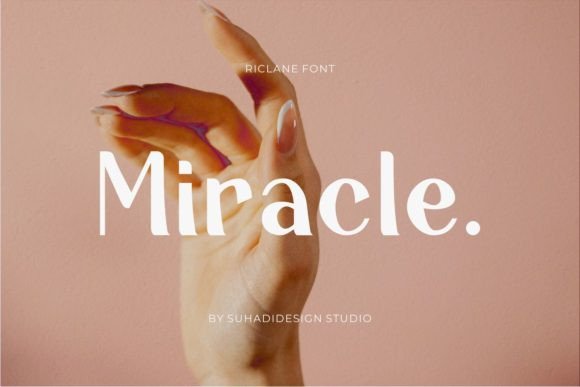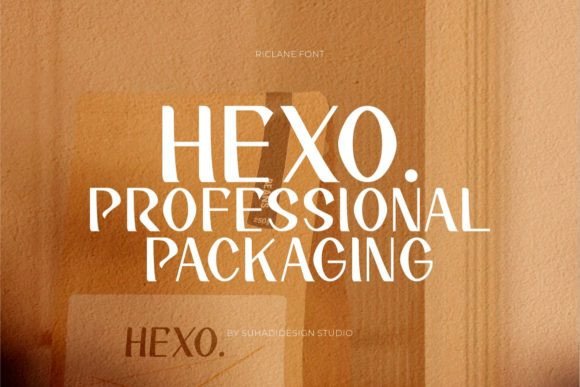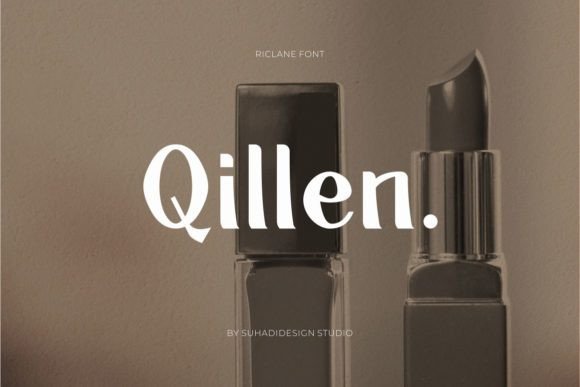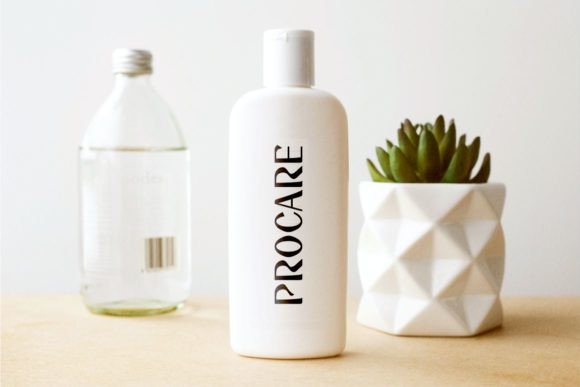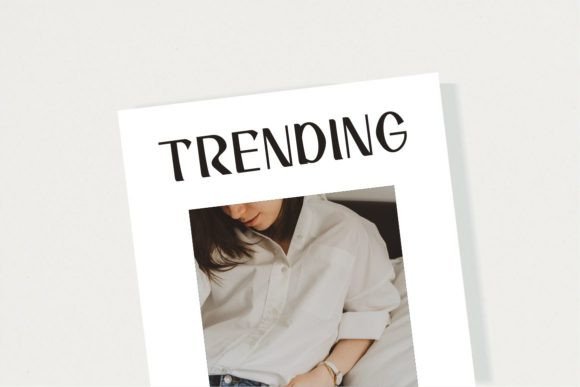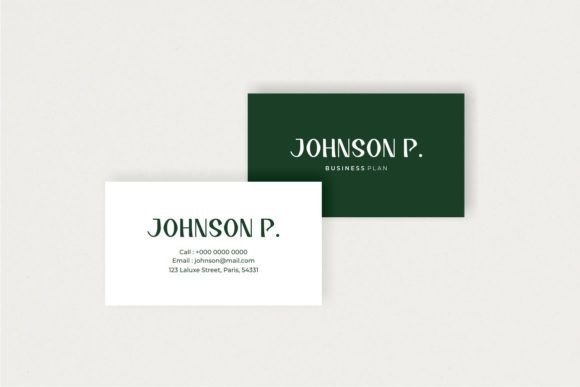
Introduction to Riclane Font
Riclane is an elegant and modern serif font with clean lines and a minimalist design.
The font is ideal for creating sophisticated headings, titles, and branding materials Its contemporary take on traditional serif design makes it versatile and suitable for a wide range of projects, while its refined details add a touch of elegance to any design.
Key Features of Riclane Font
Why Choose Riclane Font?